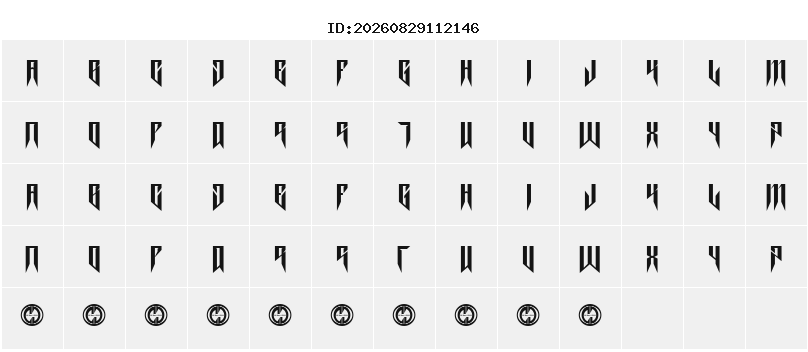
• Font Name: Thrash it
• Full Font Name: Thrash it
• Version: Version 1.00 March 25, 2016, initial release
• Character Count: 65
• Designer: Chris Vile
• Manufacturer: Font Monger
• Description: Thrash it Regular is a font by Font Monger, designed by Chris Vile in 2016.